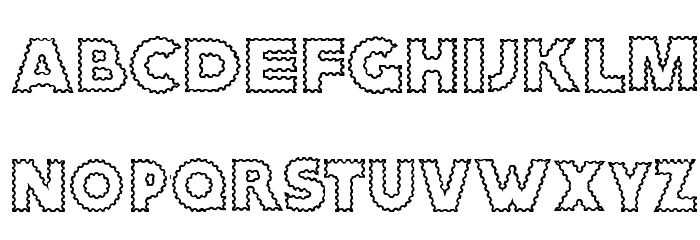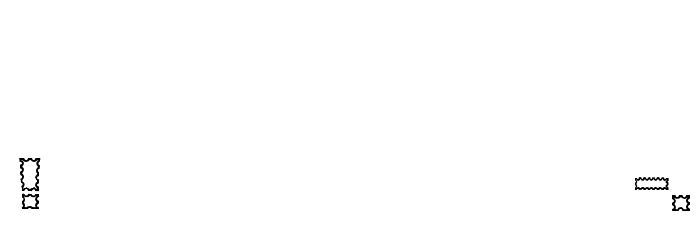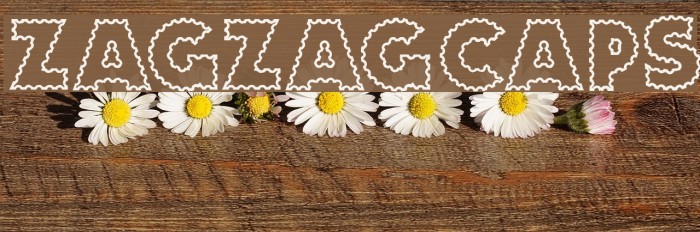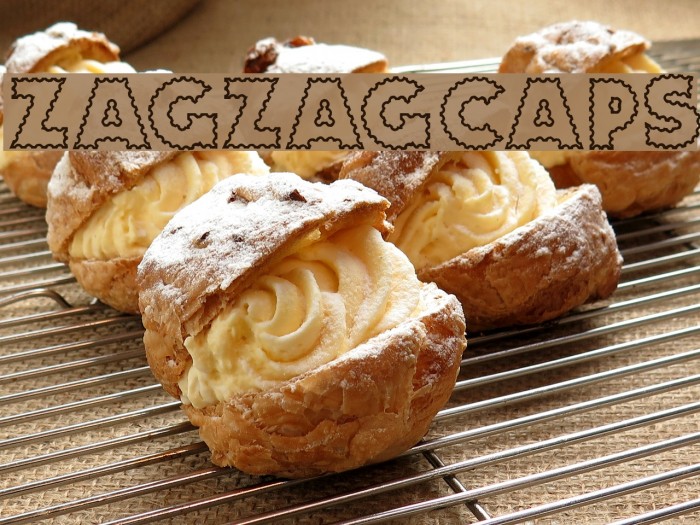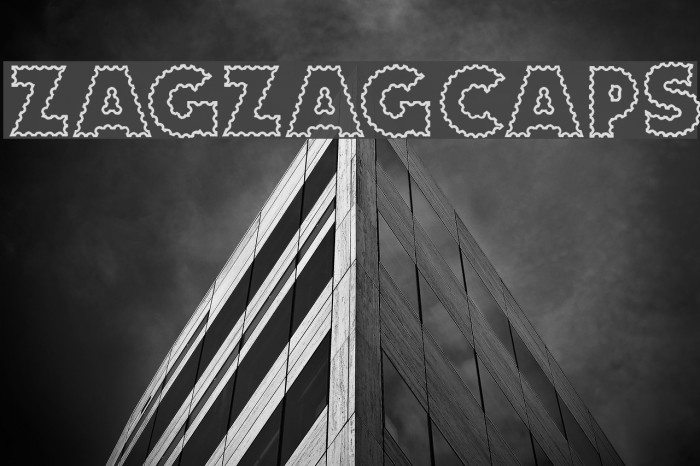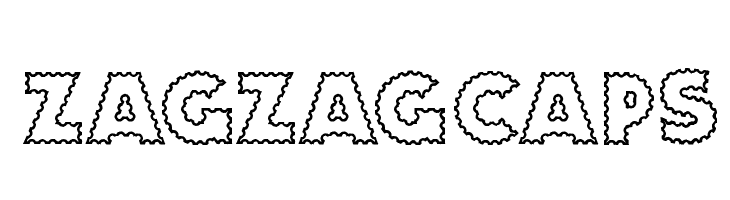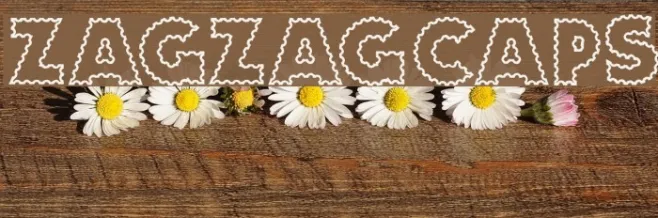
ZagzagCaps Font
This font features a bold, playful design with a zigzag pattern outlining each character. The uppercase letters are uniform in height, creating a cohesive look across the alphabet. The unique zigzag border adds a dynamic and energetic feel, making it stand out in any design. The characters are well-spaced, ensuring readability while maintaining the decorative aspect. This font is ideal for projects that require a fun and eye-catching style, such as children's book covers, playful branding, or event posters. Its distinctive appearance makes it suitable for headlines and titles where a bold statement is needed.
A bold, playful font with a zigzag pattern outlining each character.
- Proposed Projects: Children's book covers, playful branding, event posters, headlines.
- Overall Style: Playful, Energetic